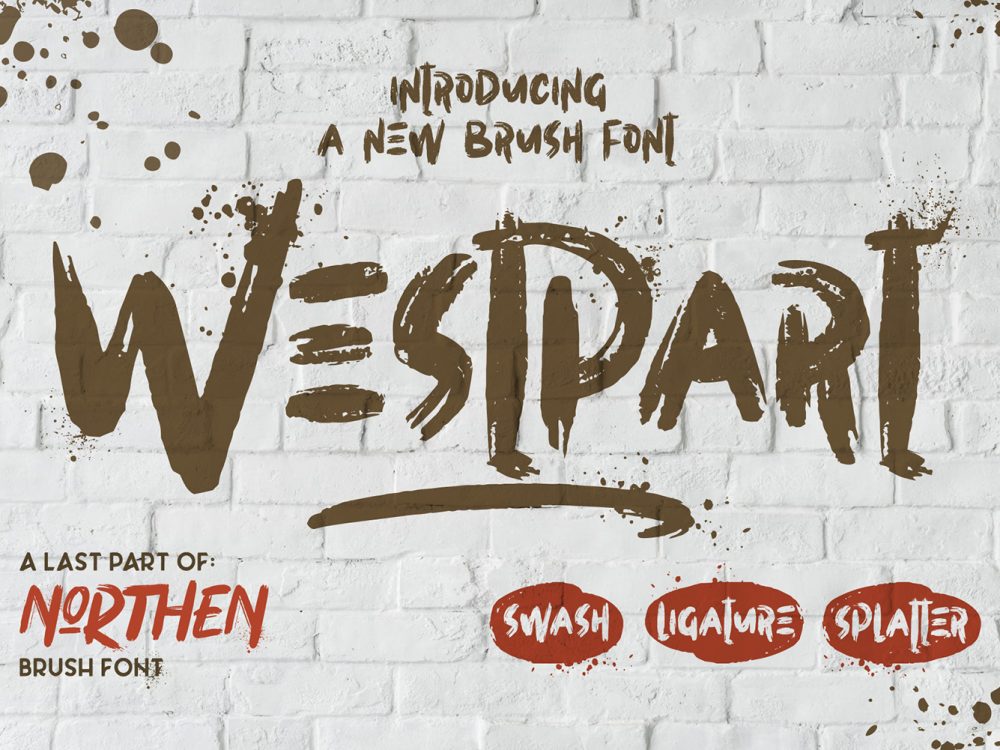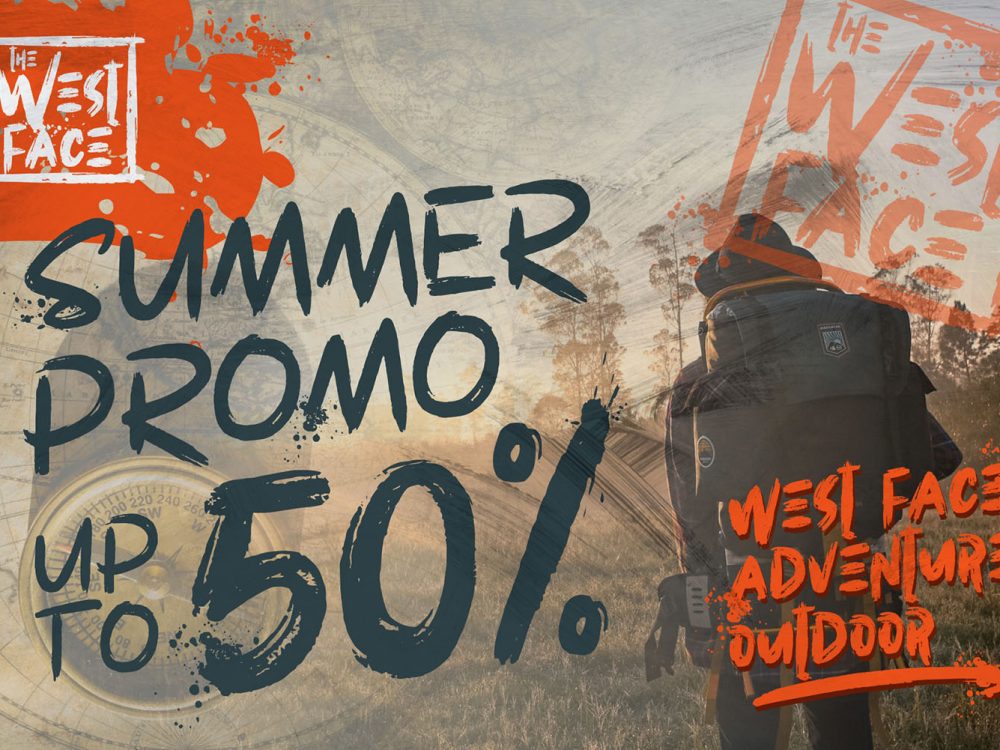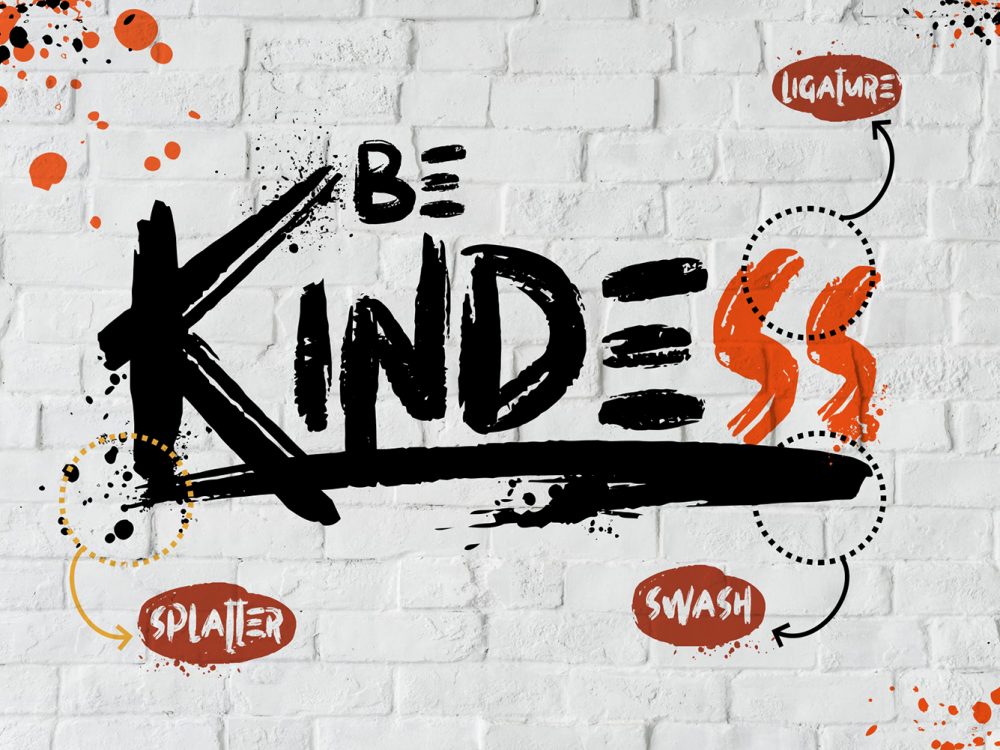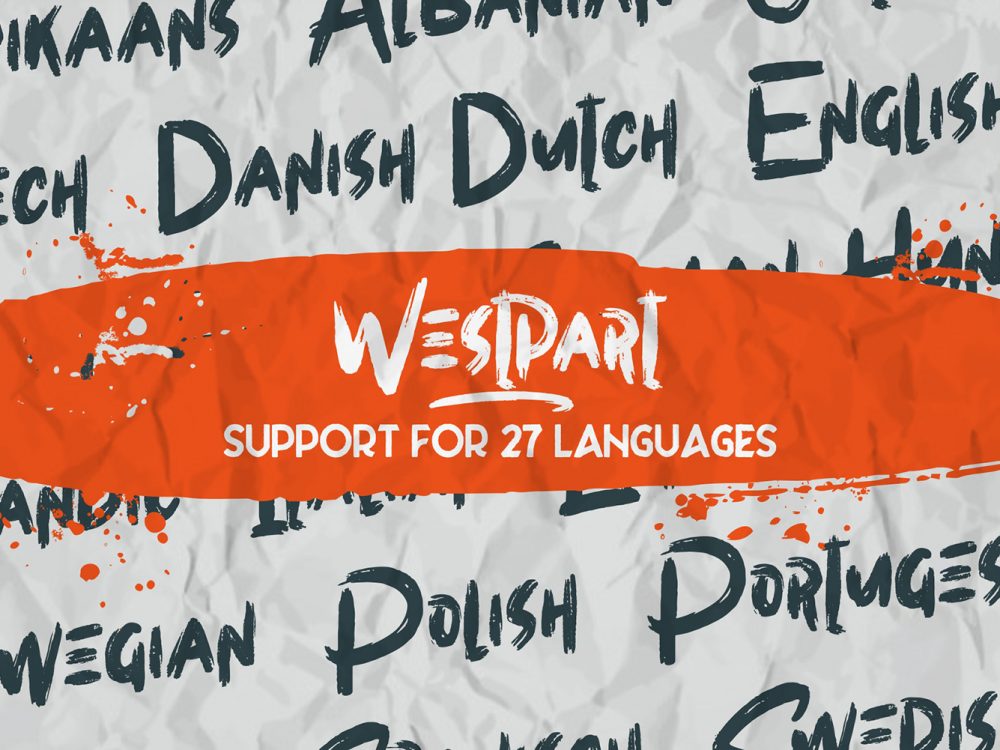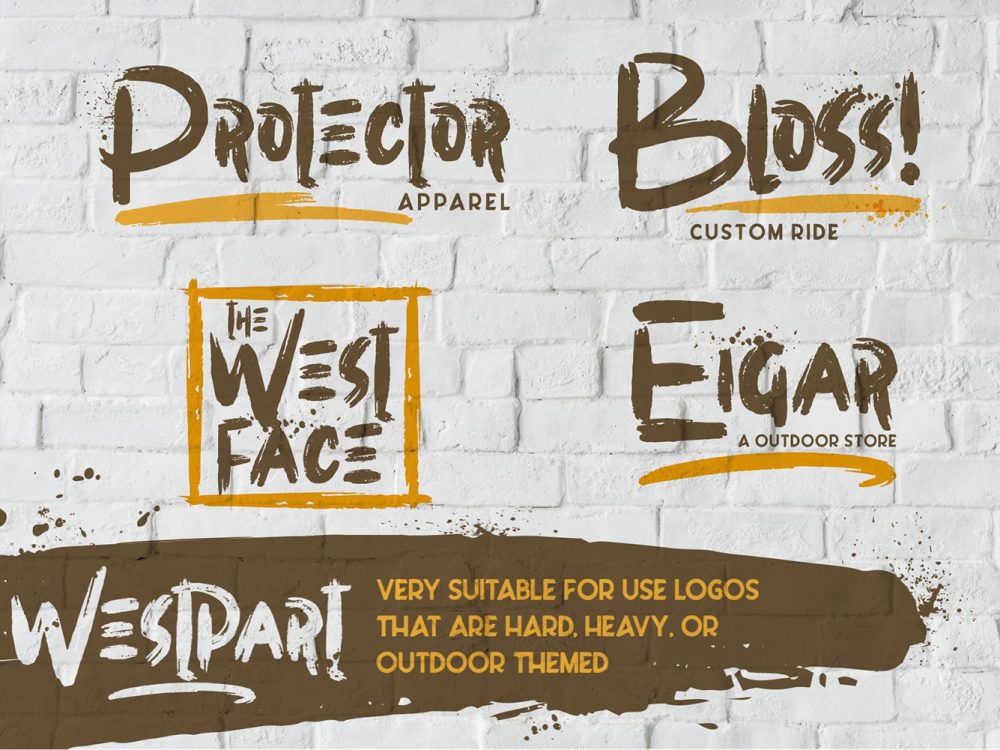
Westpart Free Font
Westpart Free Font is an interesting script font that simulates writing with a brush that will help you create various design projects in a modern style. This font was born from the previous three brush fonts: 1. Northen, 2. Easttalia & 3. Southen. You can use this font to create memorable posters, wedding invitations, cards, branding, flyers, and more. If you like it don’t forget to check out the full version.